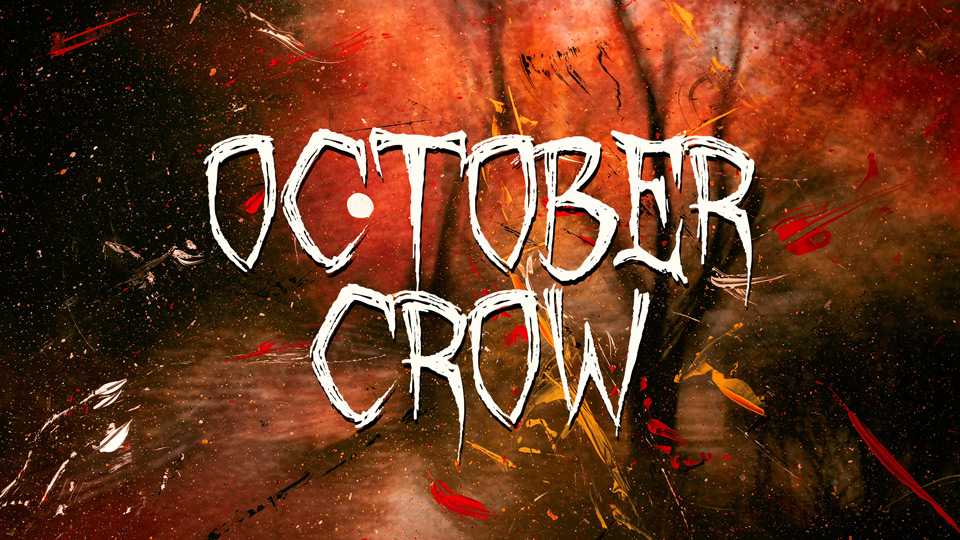
Download October Crow font, a hand crafted display typeface that delves into the terrifying and macabre with its rough letterforms. October Crow font is perfect for designs that require a visceral, scary impact.